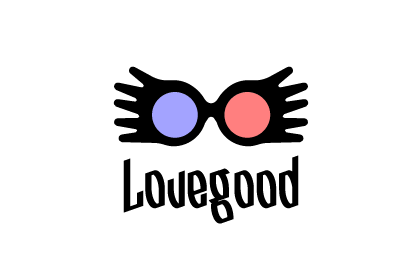
Free Lovegood Display Font
Download and enjoy this free lovegood display font. Cool typeface to showcase your designs in a modern way. This font file was found from the amazing source called Free Design Resources. This is absolutely cool font so you can easily make world-class designs.